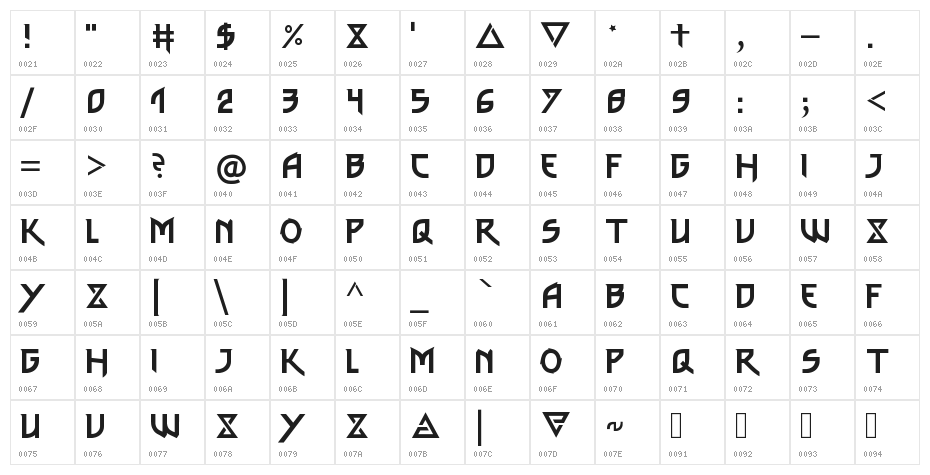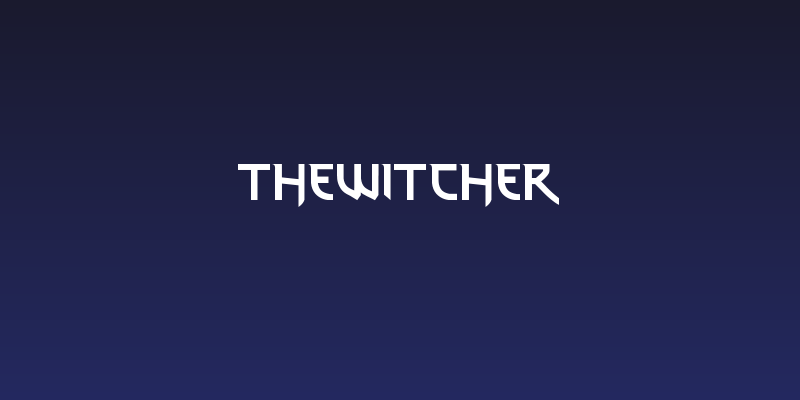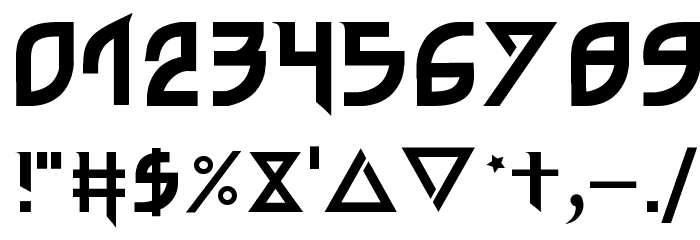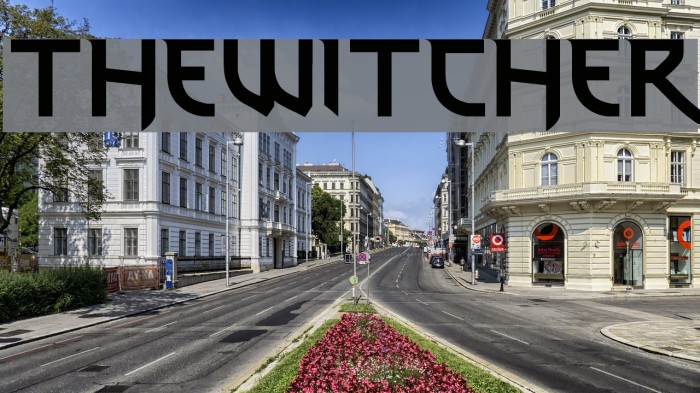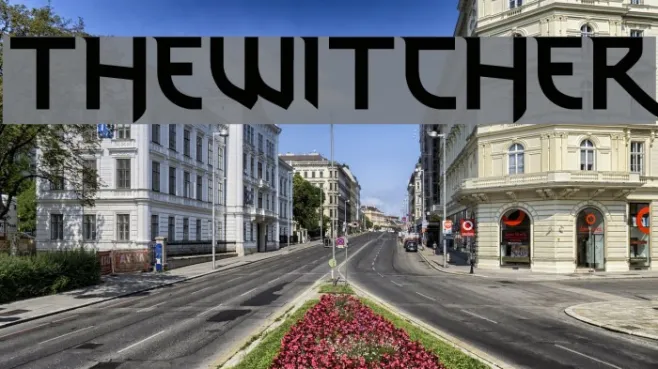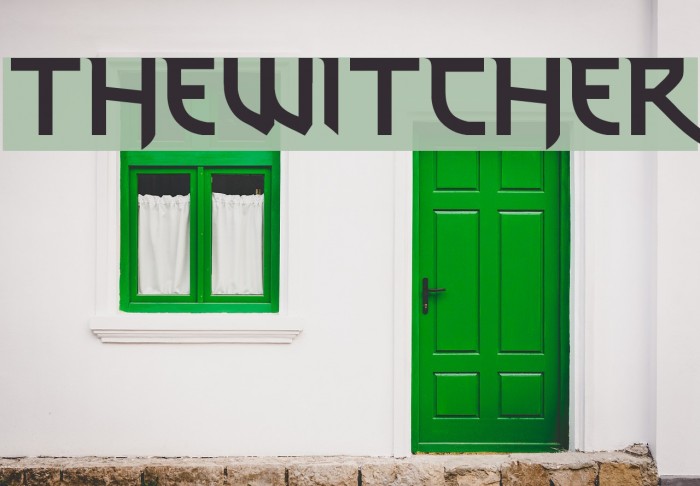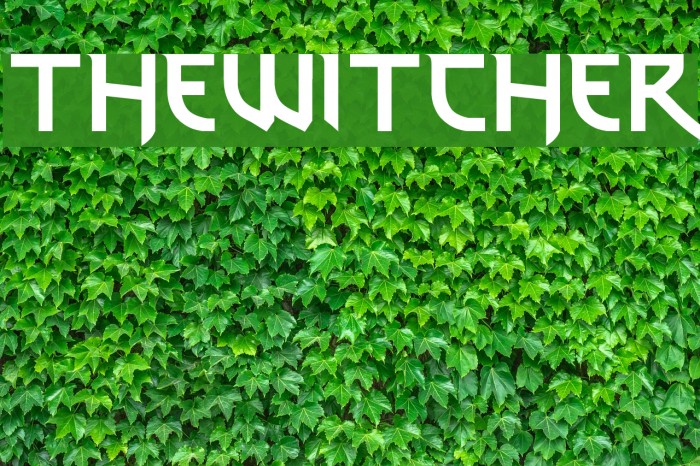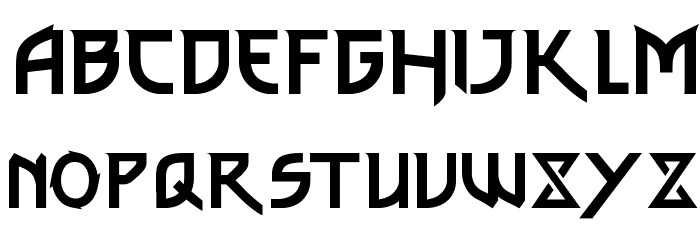
thewitcher Font
thewitcher Description
This font features a bold, angular design with a distinct medieval and fantasy-inspired aesthetic. The characters are crafted with sharp edges and geometric forms, giving them a unique and striking appearance. The uppercase letters are particularly prominent, with a strong presence that commands attention. The lowercase letters maintain the same angular style, ensuring consistency throughout the typeface. Numbers and special characters are designed to match the overall theme, making this font ideal for projects that require a dramatic and thematic touch. The font's style is reminiscent of ancient runes or glyphs, adding a mystical and adventurous feel to any text.
| Overall Style | Fantasy, Medieval, Decorative |
| Proposed Projects | Ideal for fantasy-themed projects, video game titles, book covers, posters, and branding that requires a dramatic and adventurous touch. |